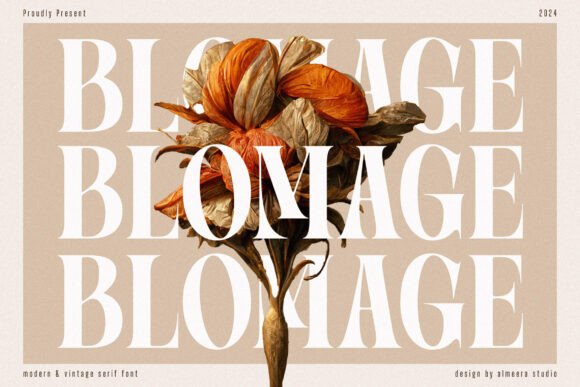
Introducing Blomage Font: The Modern, Bold, and Simple Serif Solution for Your Design Needs
In the world of typography, fonts play a crucial role in conveying messages, expressing emotions, and creating brand identities. With the vast array of fonts available, designers often find themselves searching for the perfect typeface to suit their project’s requirements. If you’re looking for a modern, bold, and simple serif font that can elevate your designs, look no further than Blomage Font. In this article, we’ll explore the features, benefits, and uses of Blomage Font, and why it’s an excellent choice for your various design needs.
What is Blomage Font?
Blomage Font is a modern, bold, and simple serif font designed to meet the demands of contemporary design. Its clean lines, elegant curves, and sturdy structure make it an excellent choice for a wide range of applications, from branding projects to digital media. The font’s simplicity and boldness ensure that your message is conveyed clearly and effectively, grabbing the attention of your audience.
Key Features of Blomage Font
- Modern Design: Blomage Font boasts a modern design that is both fresh and timeless, making it suitable for contemporary brands and designs.
- Bold and Simple: The font’s boldness ensures that your text stands out, while its simplicity guarantees that your message is easily readable.
- Serif Font: The serif design adds a touch of elegance and sophistication to your text, making it perfect for high-end brands and luxury designs.
- Versatile: Blomage Font is highly versatile, making it suitable for various design applications, from print to digital media.
Uses of Blomage Font
Blomage Font is an incredibly versatile typeface that can be used in a wide range of design projects, including:
- Branding Projects: Create a strong brand identity with Blomage Font, perfect for logos, business cards, and letterheads.
- Logos: Design stunning logos that make a lasting impression with the bold and simple serif font.
- Social Media Posts: Elevate your social media presence with eye-catching posts that feature Blomage Font.
- Advertisements: Create effective ads that grab attention with the bold and modern design of Blomage Font.
- Labels and Product Packaging: Add a touch of elegance to your product packaging with Blomage Font.
- Photography: Use Blomage Font to create stunning watermarks or overlays for your photographs.
- Wedding Designs: Add a touch of sophistication to your wedding designs, including invitations, programs, and decorations.
- Invitations: Design beautiful invitations for any occasion with Blomage Font.
- Stationery: Create professional-looking stationery, including letterheads, envelopes, and notepads.
Benefits of Using Blomage Font
Using Blomage Font in your designs offers numerous benefits, including:
- Improved Readability: The font’s simplicity and boldness ensure that your text is easily readable, even at small sizes.
- Enhanced Brand Identity: Blomage Font can help create a strong brand identity that reflects your values and personality.
- Versatility: The font’s versatility makes it suitable for various design applications, saving you time and effort.
- Modern and Fresh: Blomage Font’s modern design ensures that your designs look fresh and up-to-date.
Tips for Using Blomage Font
To get the most out of Blomage Font, consider the following tips:
- Use it Boldly: Don’t be afraid to use Blomage Font in bold sizes to make a statement.
- Experiment with Colors: Try out different colors to find the perfect match for your brand or design.
- Pair it with Other Fonts: Experiment with pairing Blomage Font with other fonts to create a unique and visually appealing design.
- Keep it Simple: Remember that simplicity is key with Blomage Font, so avoid over-accessorizing your design.
In conclusion, Blomage Font is an exceptional modern, bold, and simple serif font that can elevate your designs to new heights. Its versatility, readability, and modern design make it an excellent choice for various design applications. Whether you’re working on branding projects, logos, social media posts, or any other design project, Blomage Font is sure to impress. So why wait? Try Blomage Font today and take your designs to the next level!